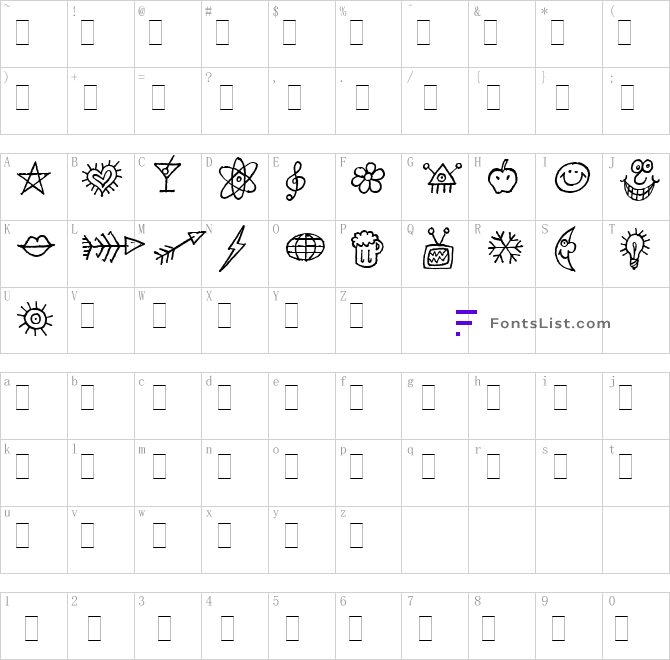
- Font Name:Dancin Alts LET
- Subfamily:Plain
- Subfamily:Dancin Alts LET Plain
- Full Name:Dancin Alts LET Plain:1.0
- PostScript:DancinAltsLetPlain
Dancin-Alts-LET-Plain-10.ttf is a very beautiful artistic font, Dancin-Alts-LET-Plain-10.ttf is widely used in the design and printing of various books and pictures,Dancin-Alts-LET-Plain-10.ttf has a strong visual impact,Dancin-Alts-LET-Plain-10.ttf is a commonly used font in newspapers, magazines and books, and is used in posters, e-commerce Poster design, store design, logo design, font design and other fields.Dancin-Alts-LET-Plain-10.